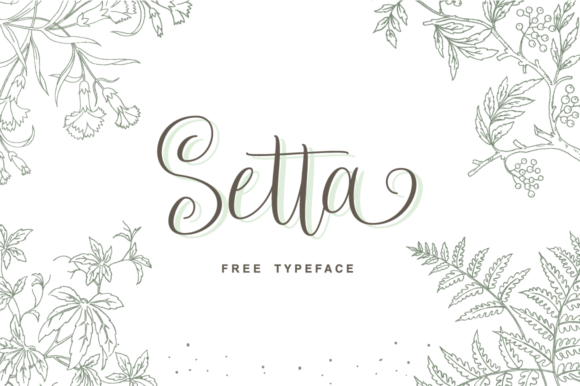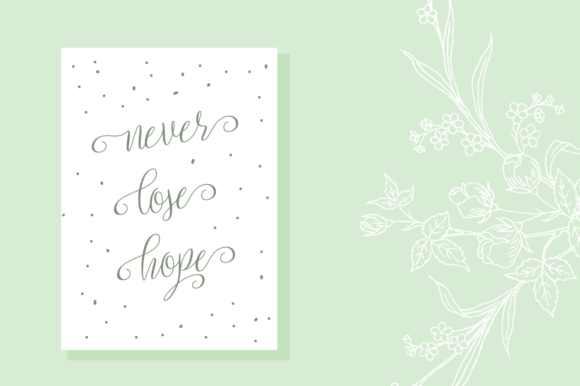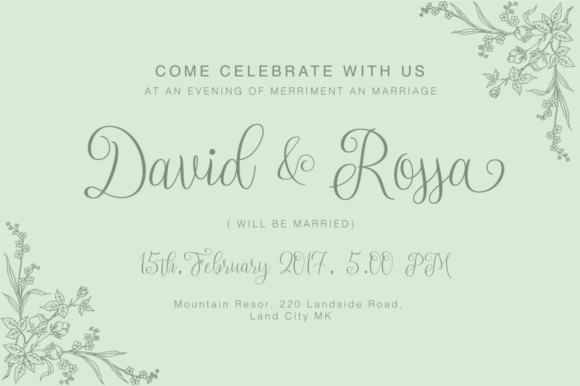
HomePersonal Use FreeSetta Personal Use Free Setta FacebookTwitterPinterestWhatsApp 1 of 4 About Setta Font Setta is a beautiful light handwritten font with a unique feel and a stunning impact. It will add a luxury spark to any design project that you wish to create! DOWNLOAD NOW People also explored Simple Home Font Cold Turkey Font Bradlay Font Jasmine Font Create Something Today Font Campaign Podache Font Surender Font Bergenia Duo Font 150 0 TagsBassetta Pollina FontCheryl Masetta Font Previous articleStone GardenNext articleKilsonburg LEAVE A REPLY Cancel reply Comment: Please enter your comment! Name:* Please enter your name here Email:* You have entered an incorrect email address! Please enter your email address here Website: Save my name, email, and website in this browser for the next time I comment. Personal Use Free BD Pipe Personal Use Free Read more about this font Little Pixel Personal Use Free Read more about this font Glowing Personal Use Free Read more about this font Pretender Personal Use Free Read more about this font BLOG Free Fonts Risk: Why Free Fonts Can Be Dangerous for Designers Free Fonts Risk: Why Free Fonts Can Be Dangerous for Designers Using free fonts is a common practice in web and graphic design. However, the... Transform Your Website: Elevate Your Typography with 7 Best Web Font Generators Free vs Paid Fonts: Why Investing in Premium Fonts Is Worth It To increase your work productivity, choose the most readable fonts.